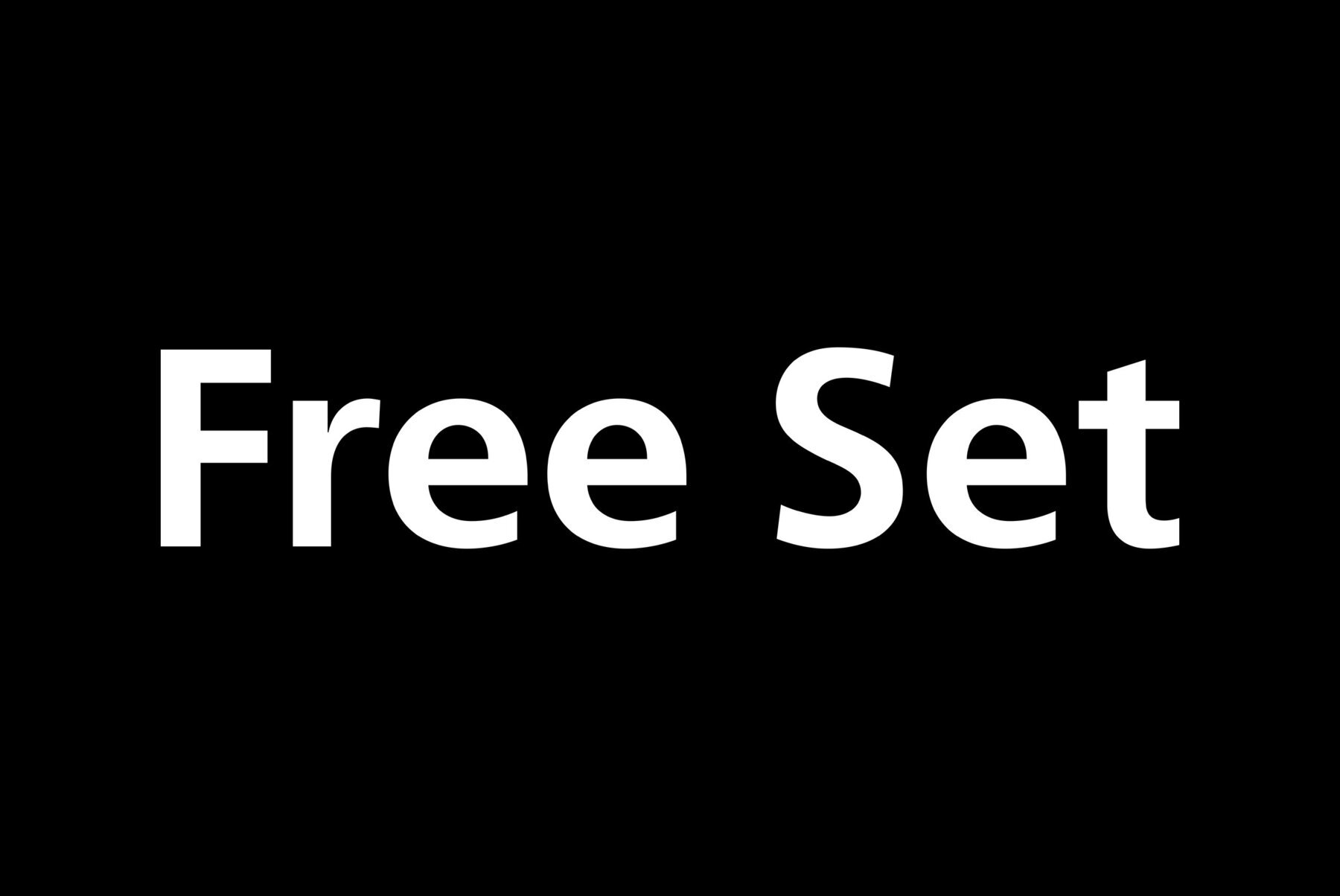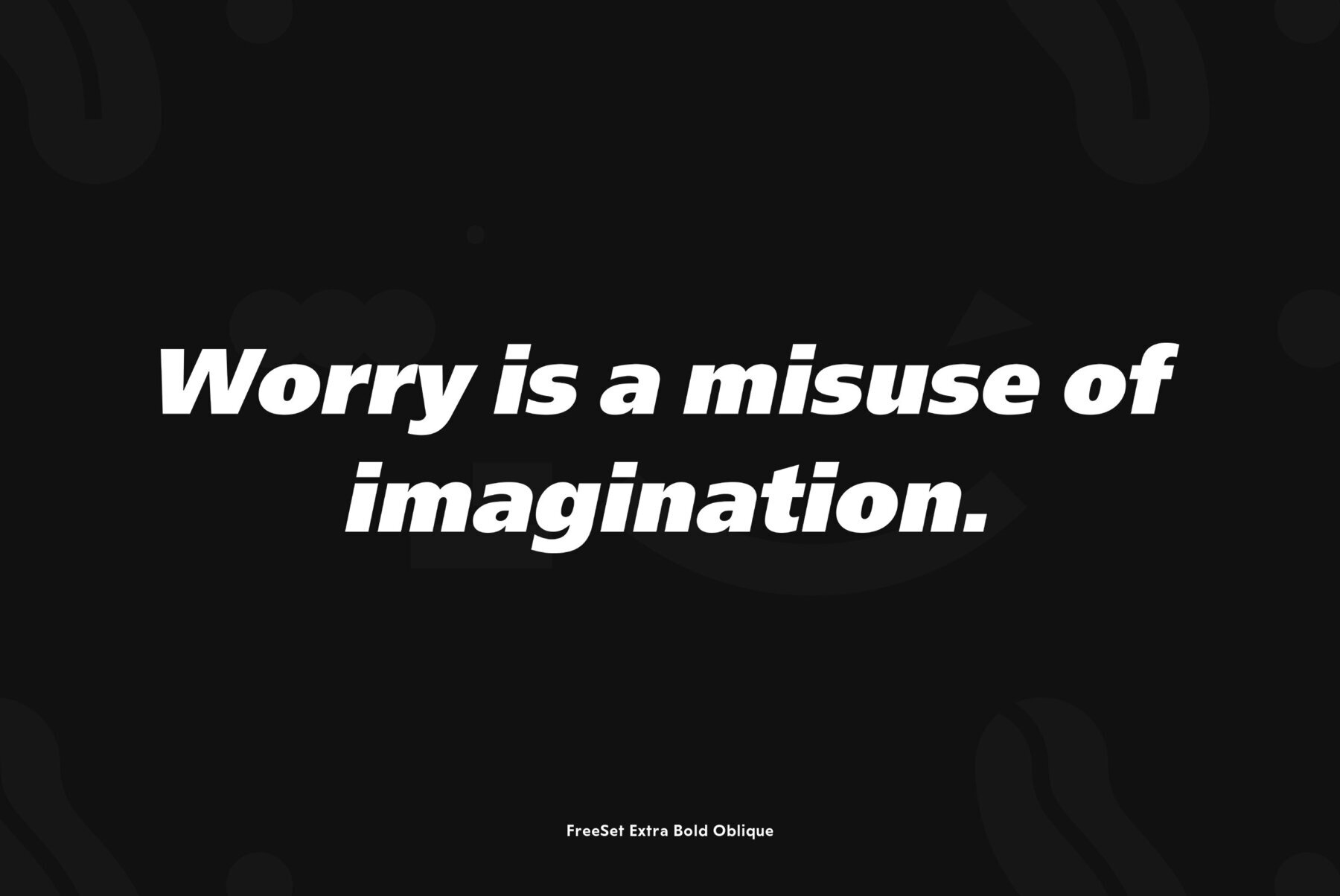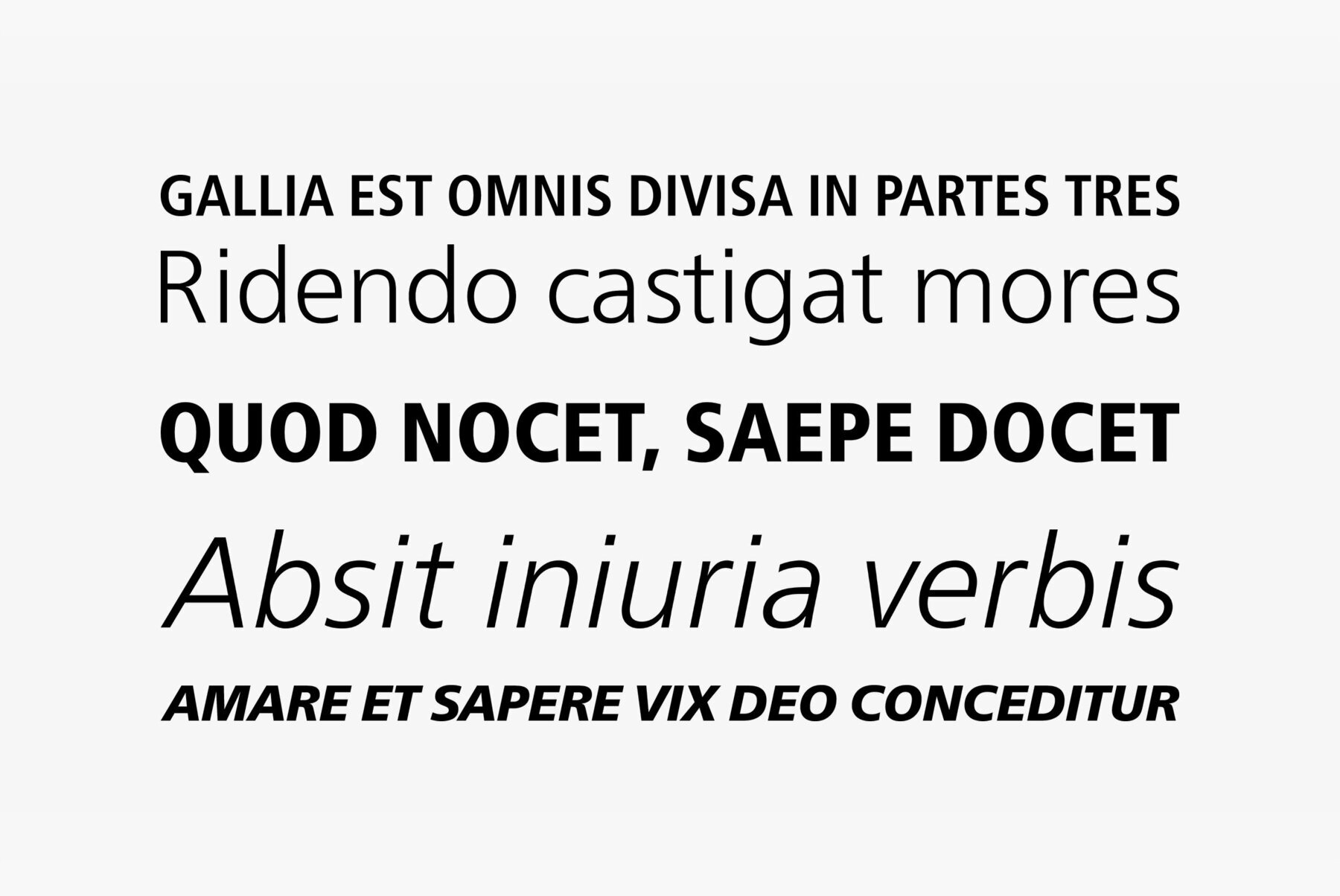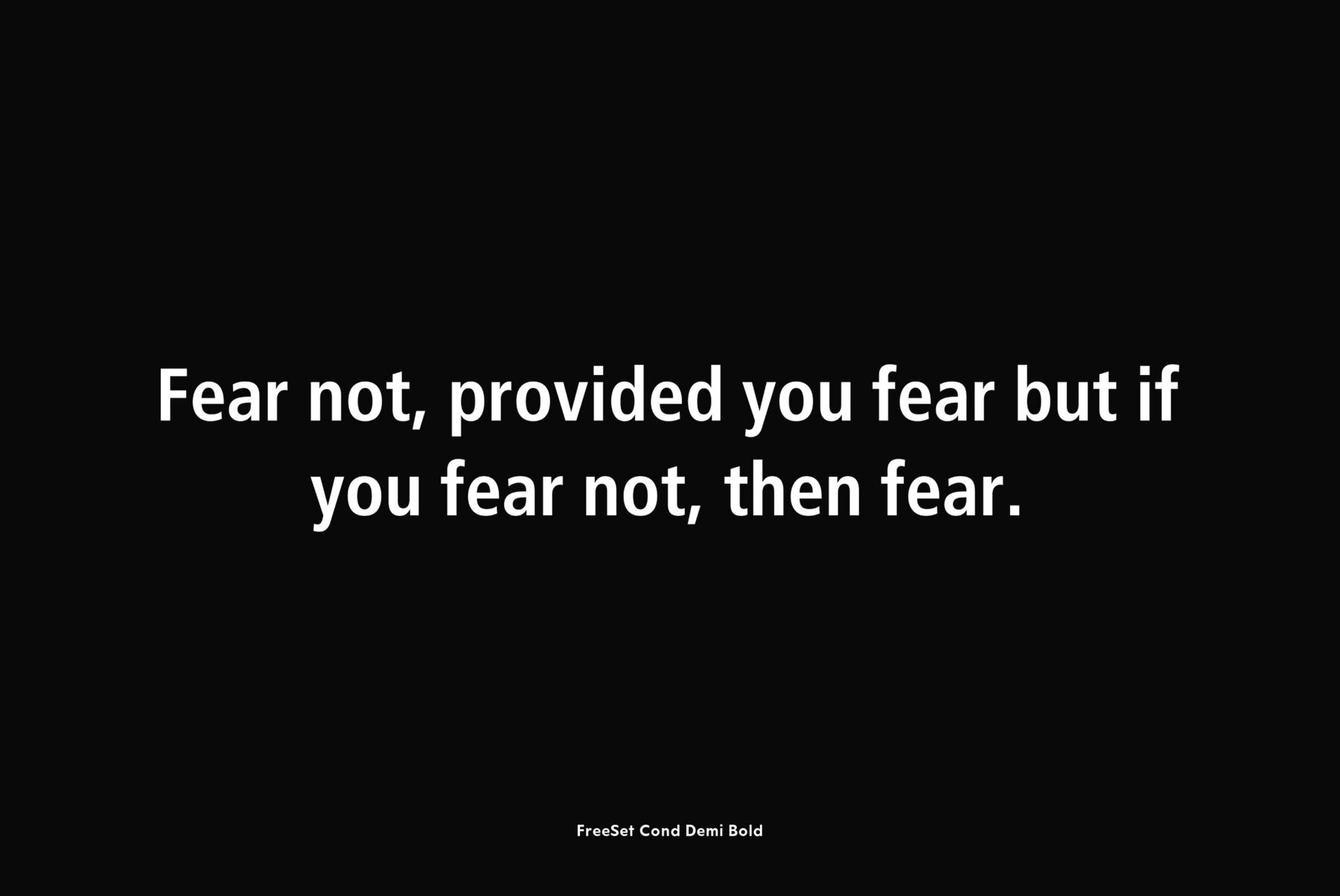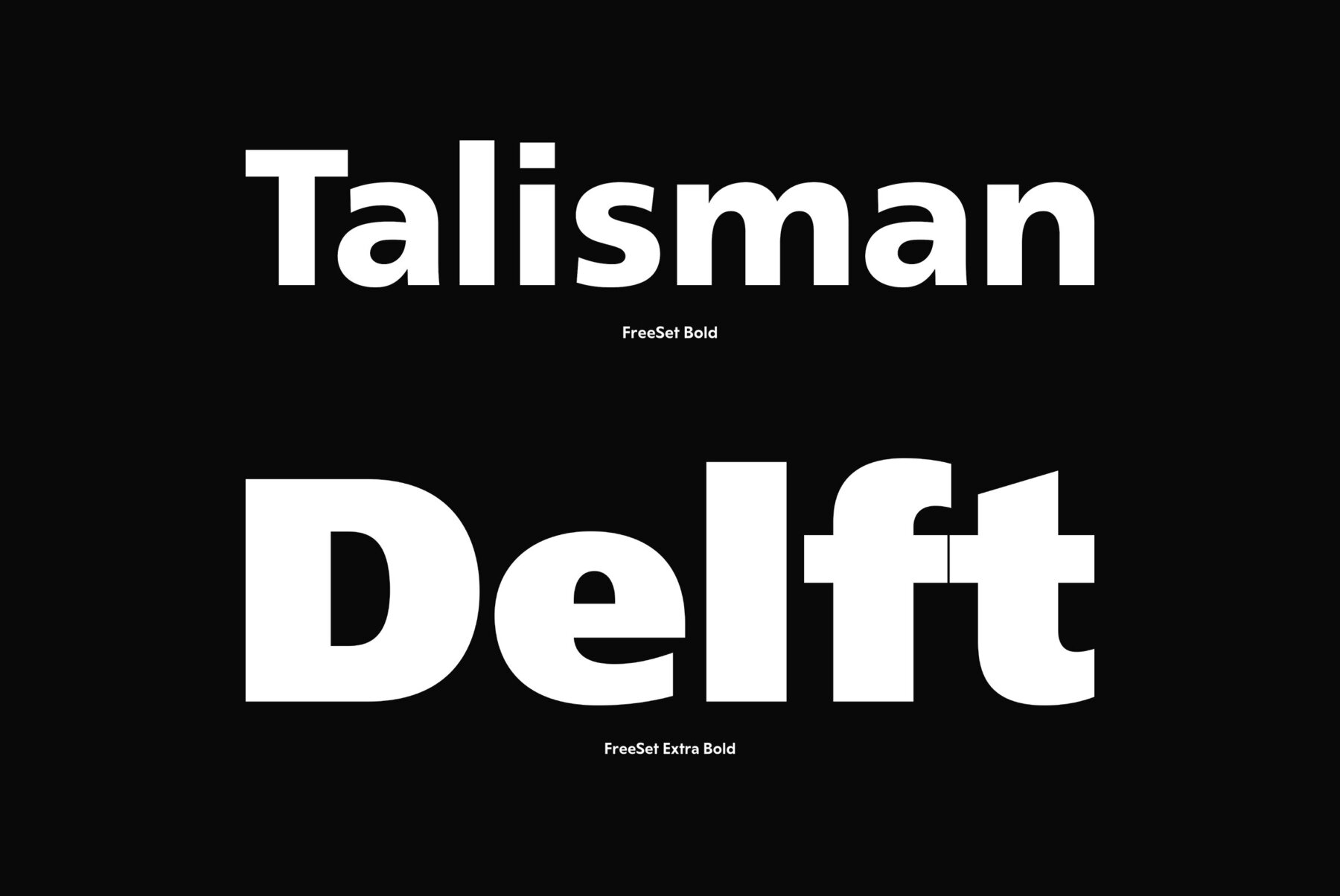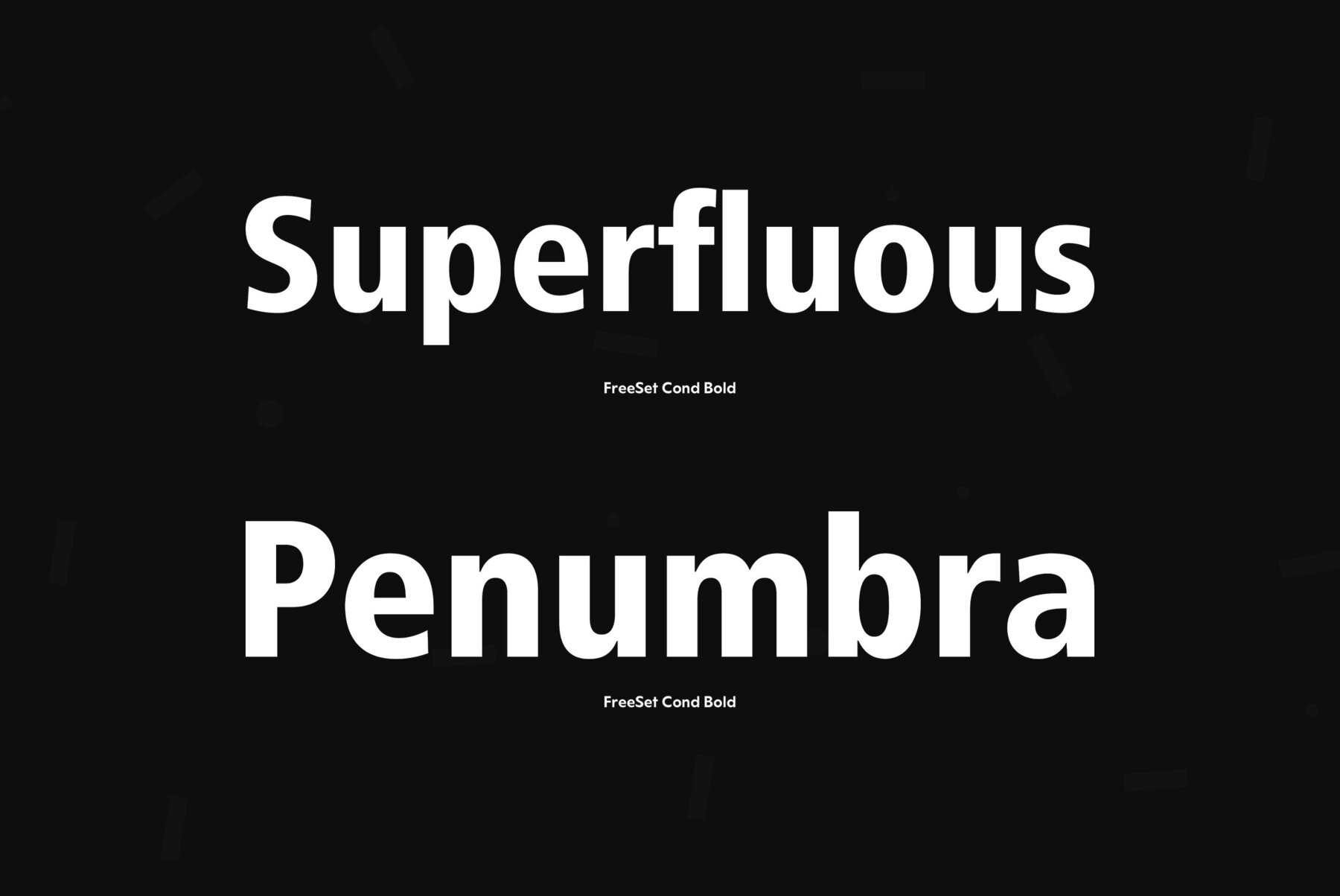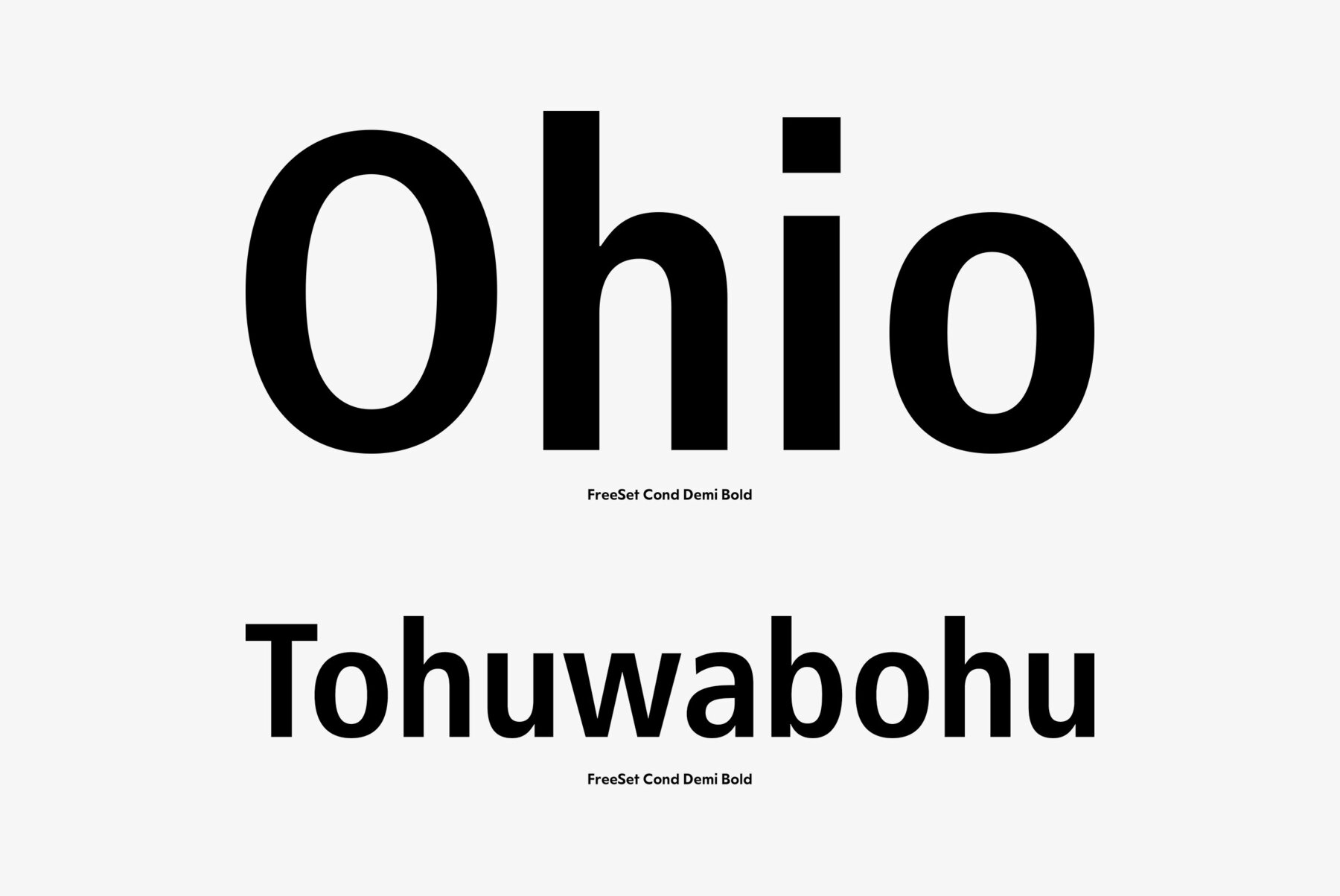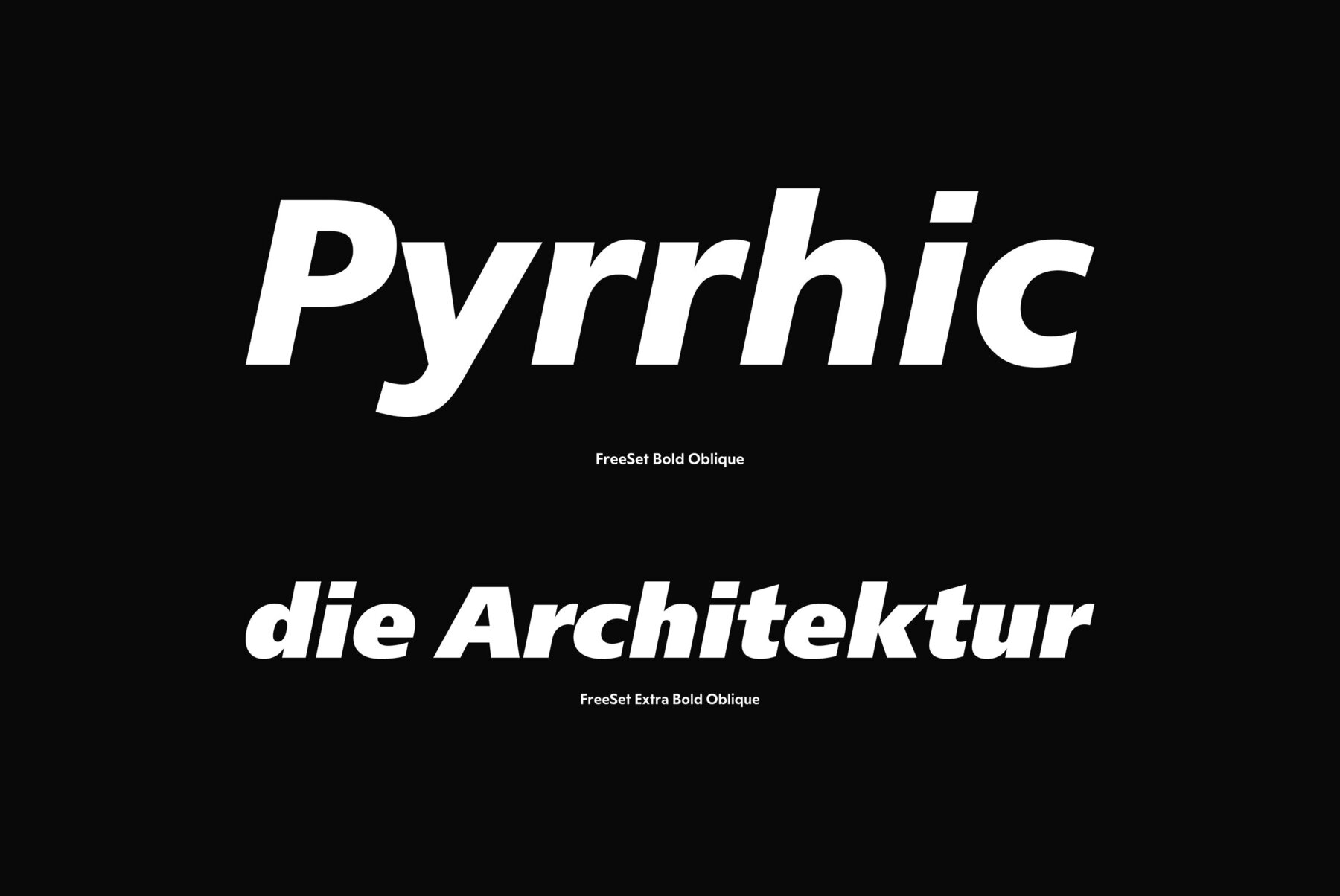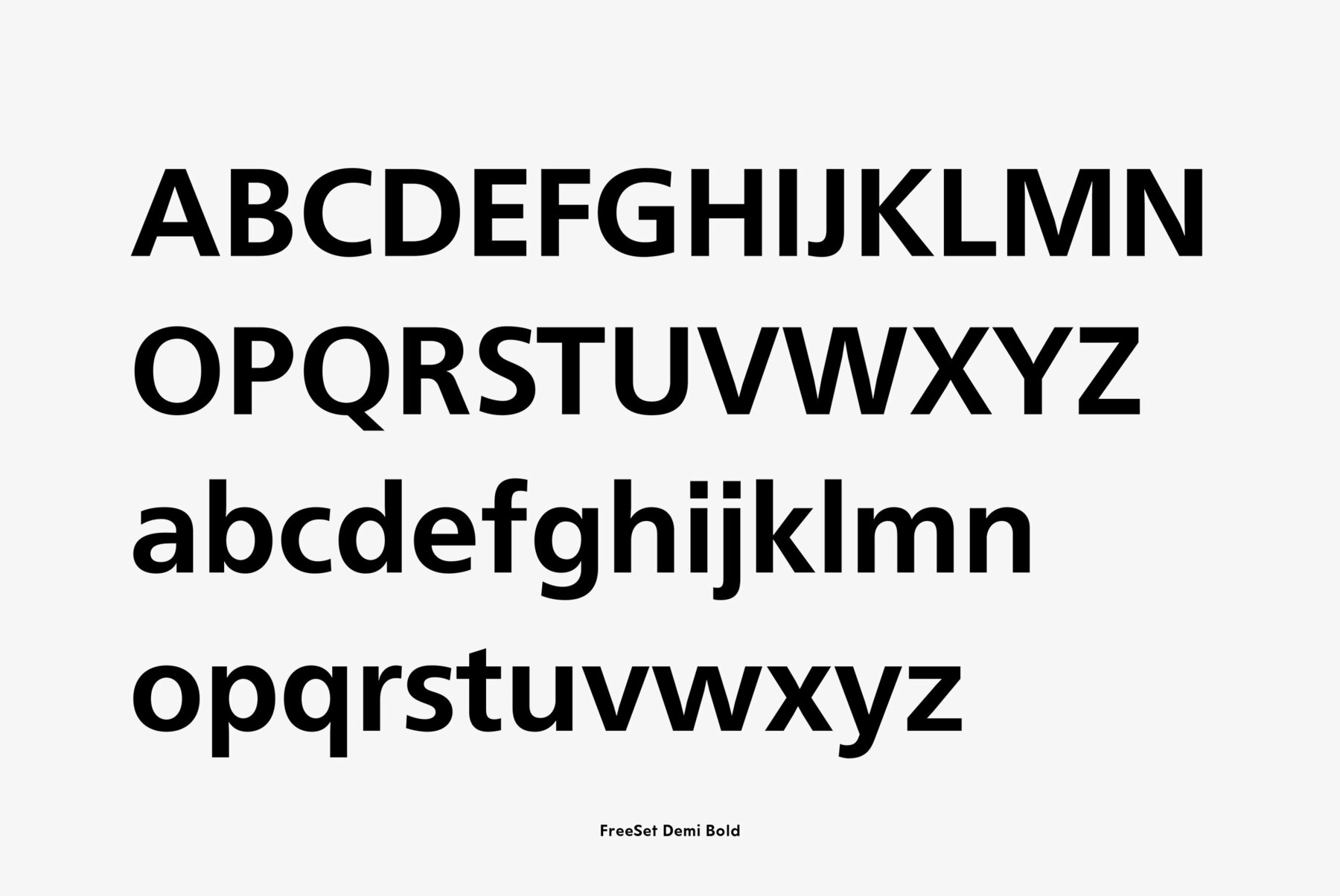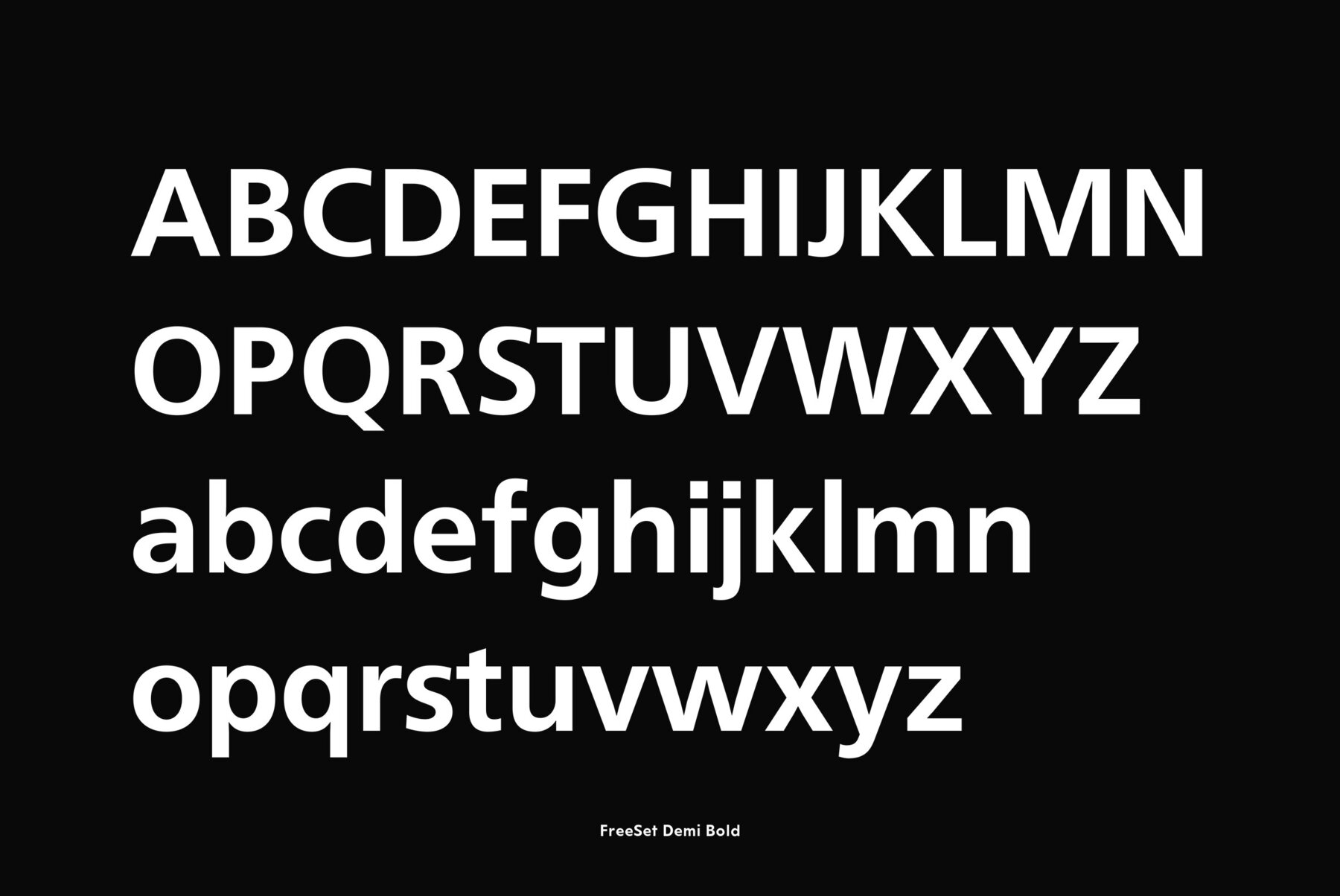
The type family in four basic styles was designed in ParaType (ParaGraph) in 1992 by Tagir Safayev. Based on Frutiger, of Mergenthaler Linotype, 1976 by Adrian Frutiger. Frutiger font was originally designed for use on signs at the new Charles de Gaulle Airport at Roissy. The straightforward sans serif shapes are suited well for both text and display setting. Six additional styles were added in 1998-2000. Multilingual versions of 6 styles (Light, Demi and Extrabold) include Armenian alphabet designed by Manvel Shmavonyan in 1997. Two condensed Cyrillic styles (Demi Condensed and Bold Condensed) designed by Manvel Shmavonyan in 2005.